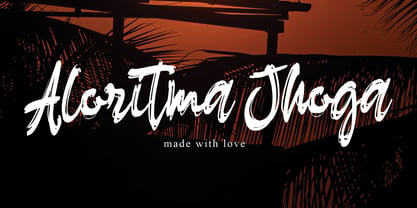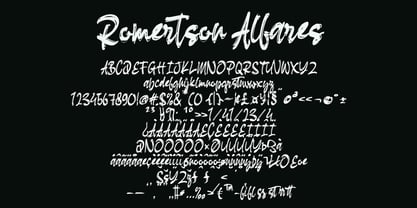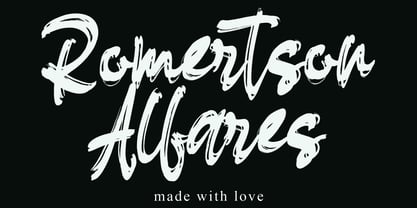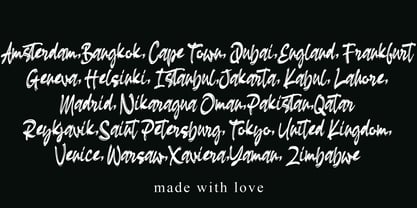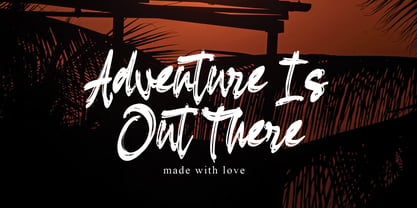
Romertson Alfares
by Ayska
The Romertson Alfares Font Family was designed by Dhoni Trihatmoko and published by Ayska. Romertson Alfares contains 1 styles. More about this family
Delve into the mesmerizing allure of Romertson Alfares, a perfect blend of modern creativity and the enduring allure of hand-drawn script. This sensational font emanates an unparalleled level of sophistication, infusing a unique artistic essence into all your original projects. Ideal for transforming your digital journal into a work of art, personalizing your blog with a distinctive touch, or elevating your handwritten notes with its unrivaled typographic prowess. Surrender to the captivating charm and boundless artistry offered by Romertson Alfares. It enhances everything, from serene personal spaces to dynamic photo galleries, with its captivating influence. This distinctive font conveys a fascinating ability to morph simple visuals into intricate masterpieces, capturing the viewer's attention with its intrinsic charisma. Traverse into the enchanting realm of Romertson Alfares - a guiding light towards a sanctuary brimming with innovative concepts and unforgettable aesthetics. Let Romertson Alfares fuel your creative fervor and transform your creative visions into breathtaking digital masterpieces.
Designers: Dhoni Trihatmoko
Foundry: Ayska